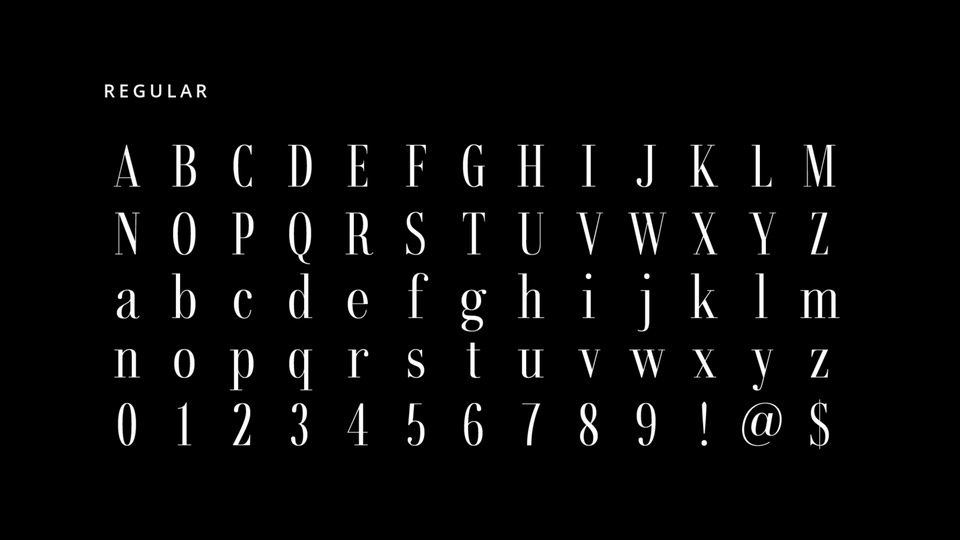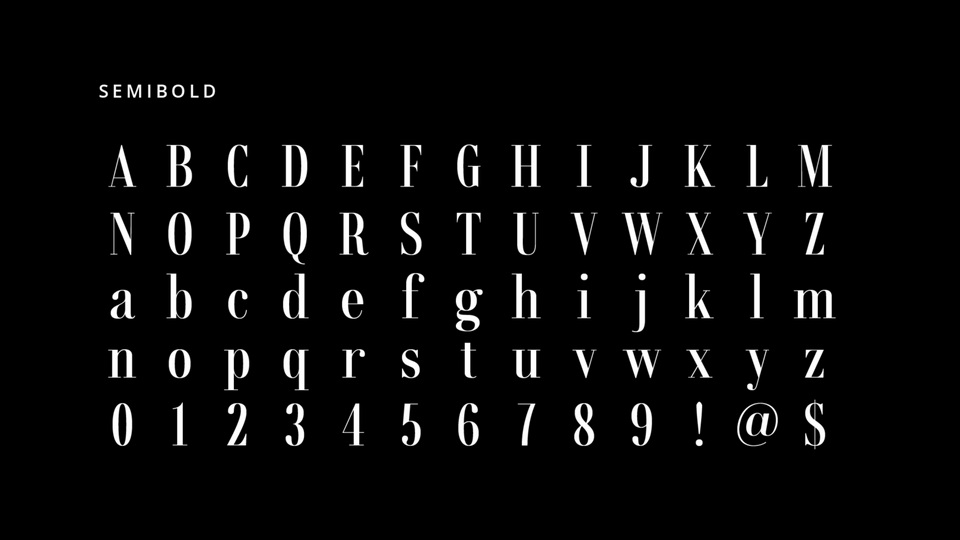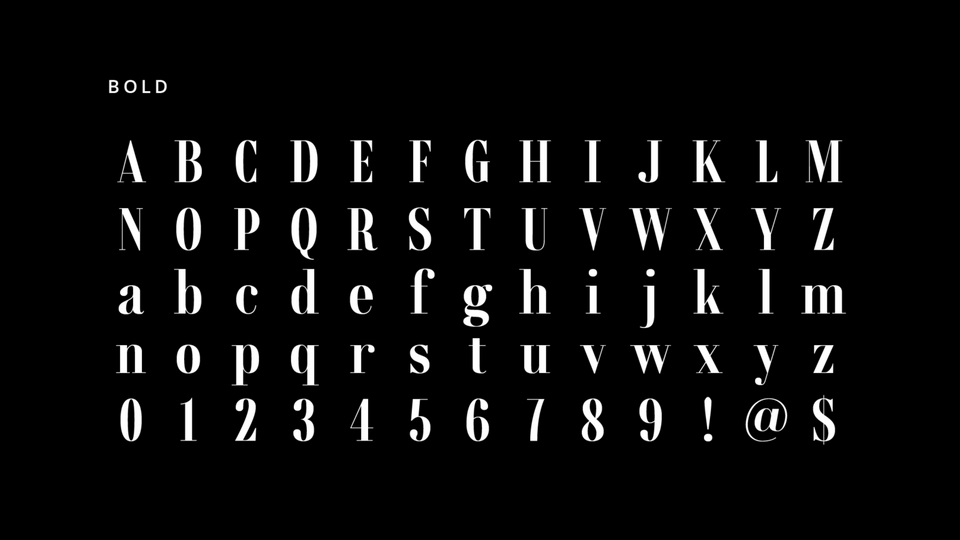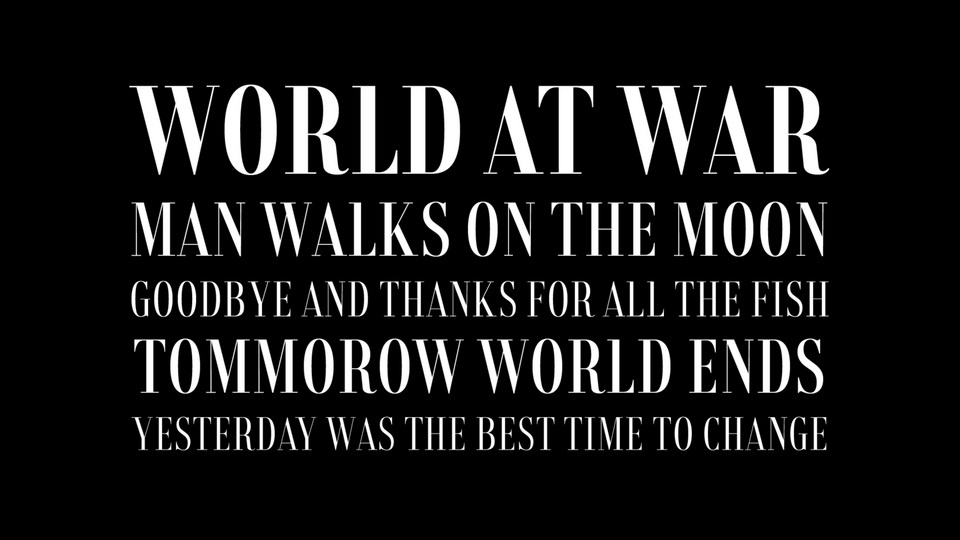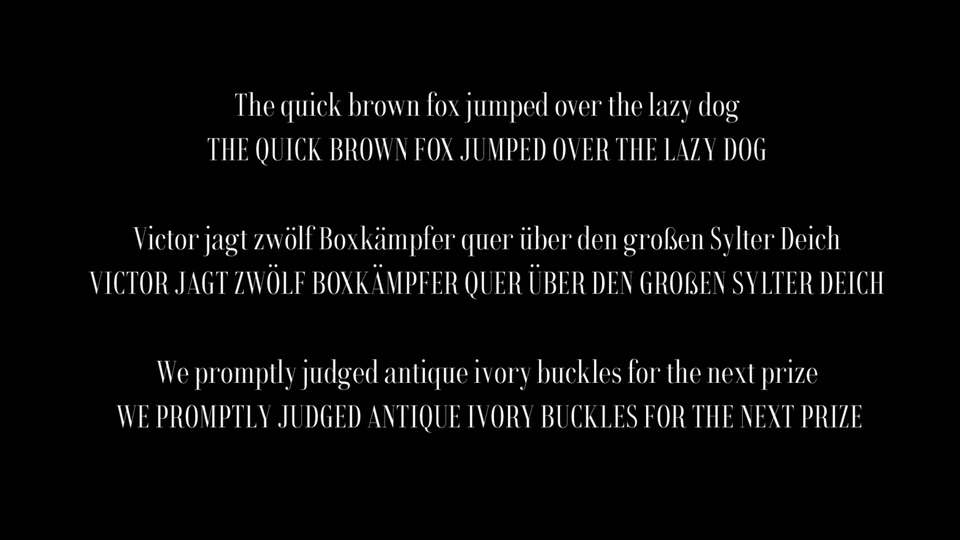
Rondal Typeface
Rondal is an amazing a high contrast and condensed modern serif font family. It comes in Regular, Semibold and Bold weights.
Rondal font was specially designed for branding, advertising, editorial design and social media.
Designed by: Daler Mukhiddinov